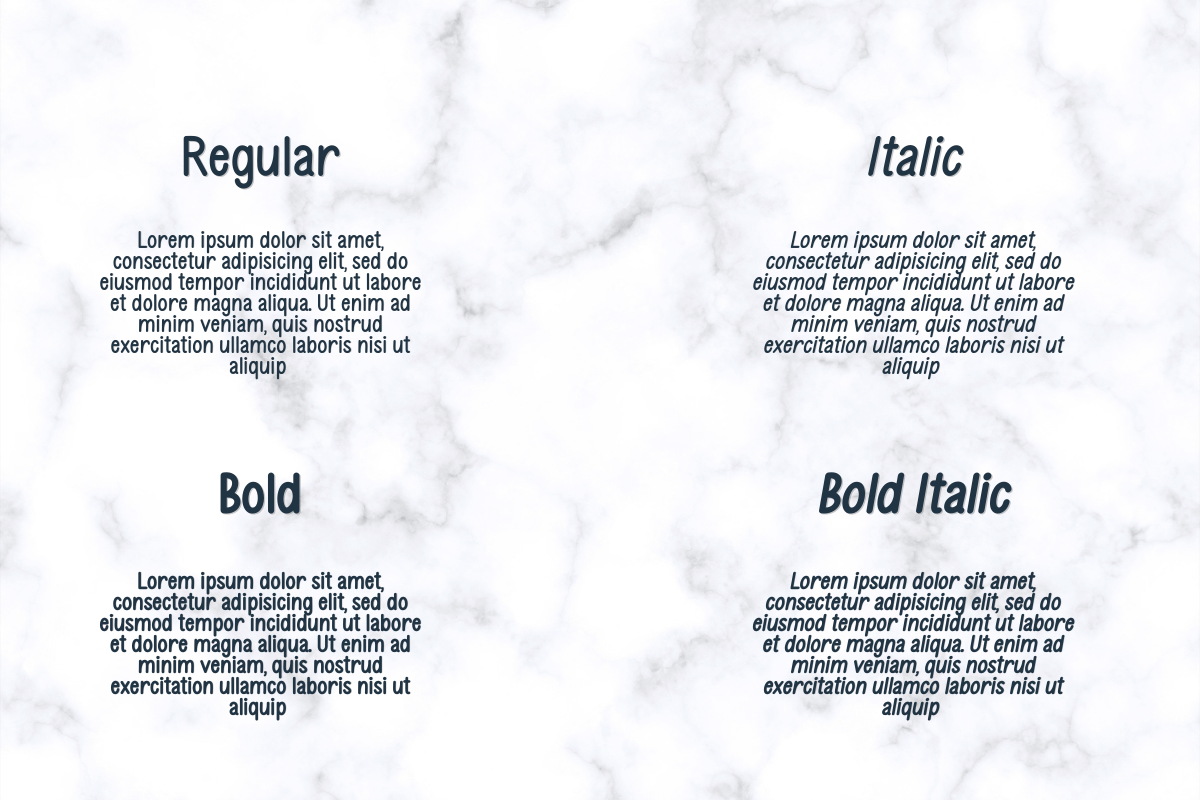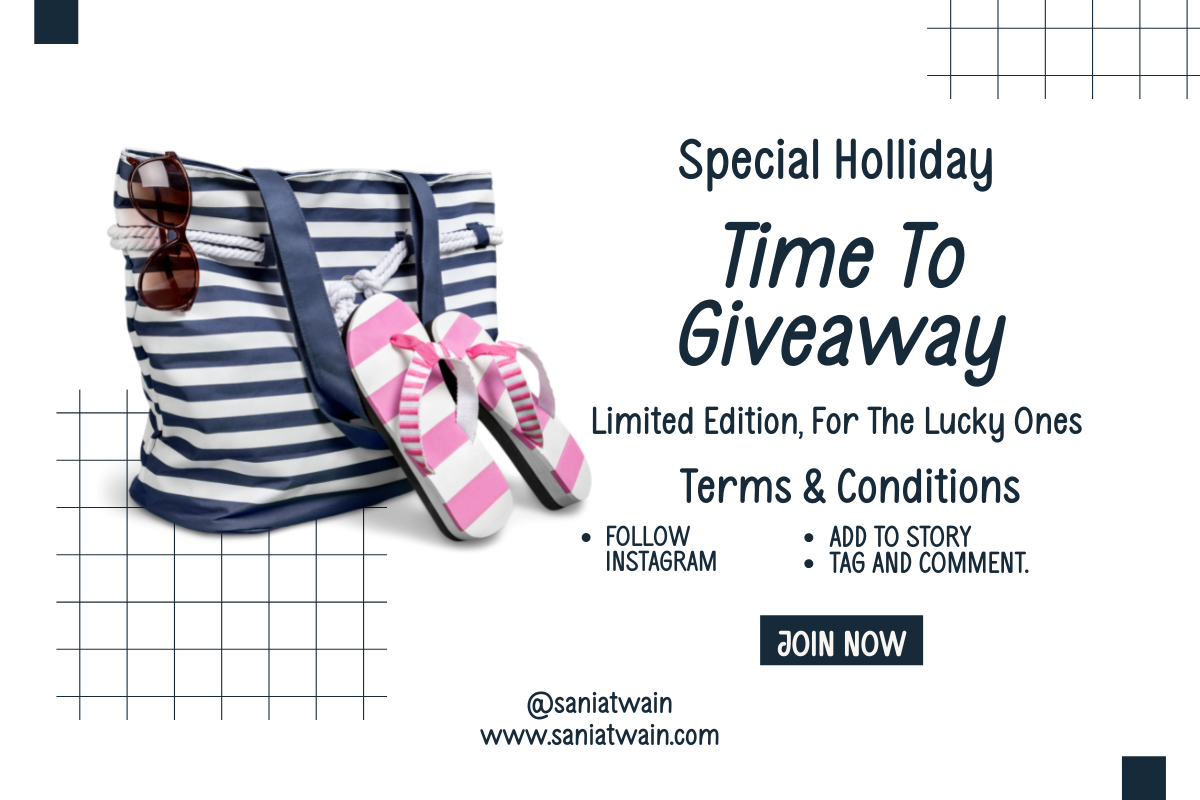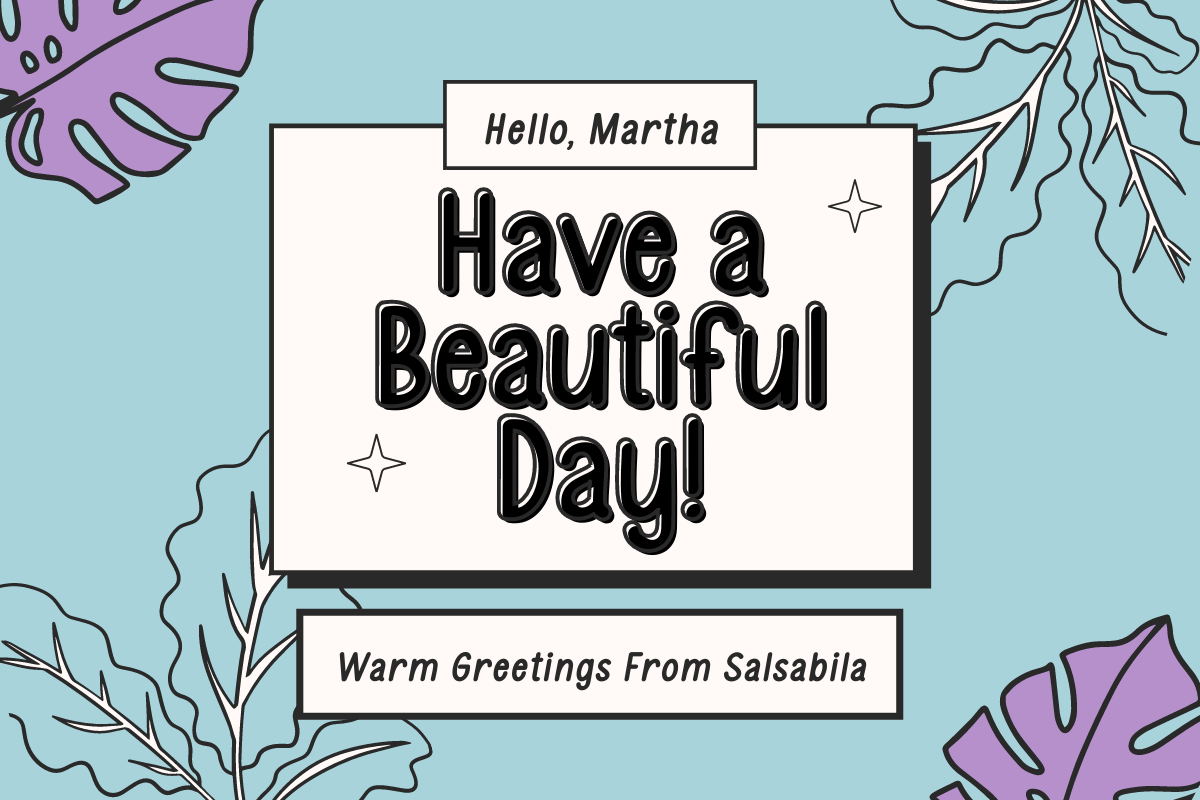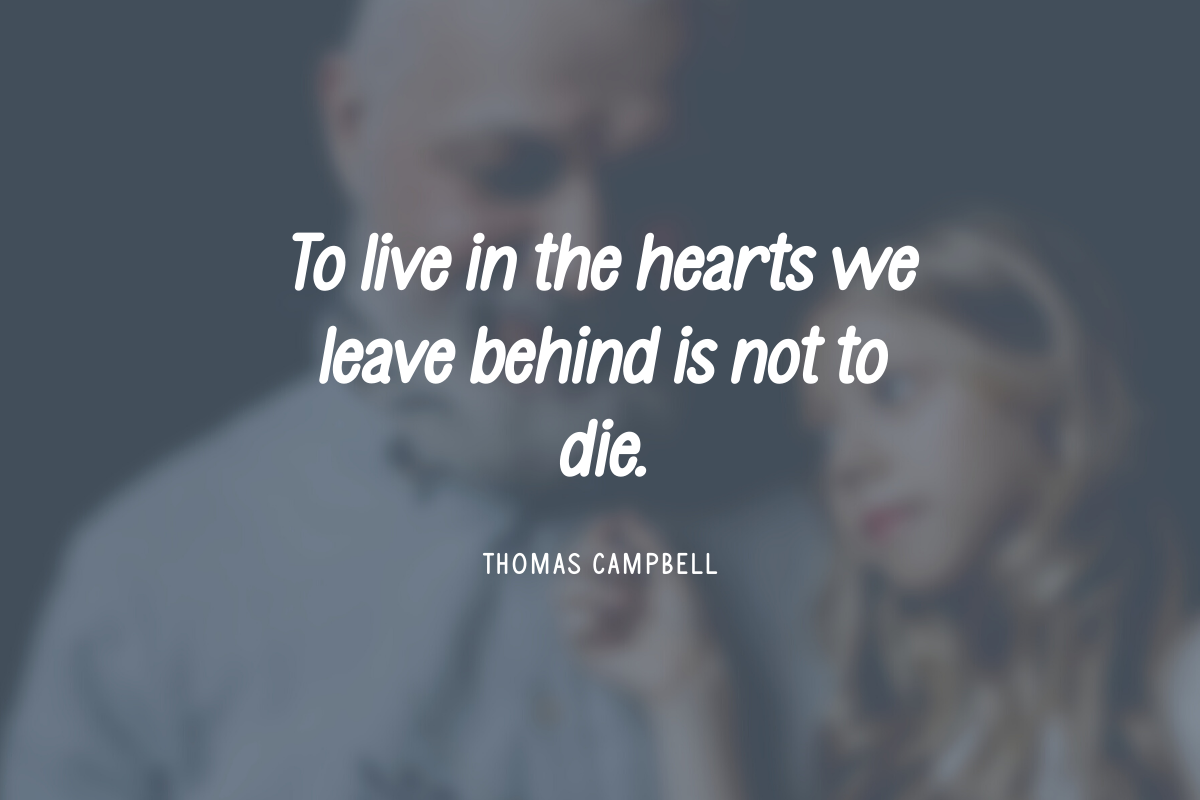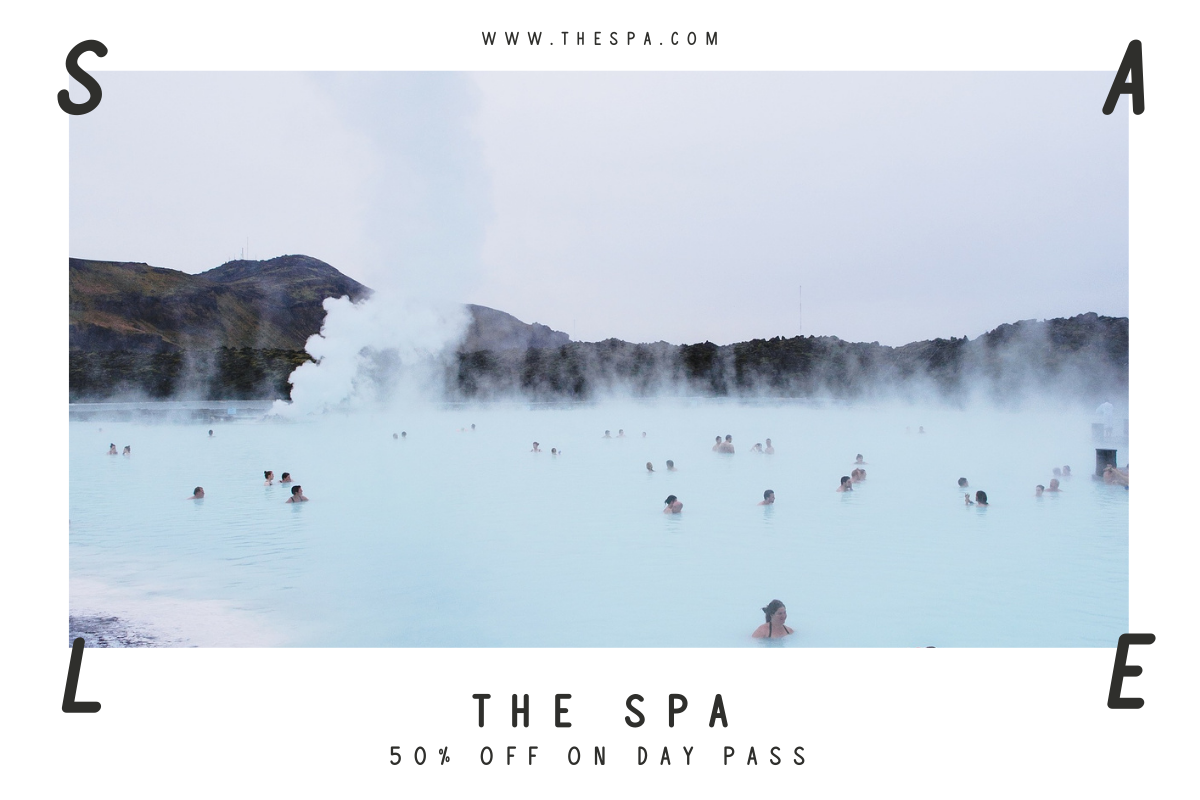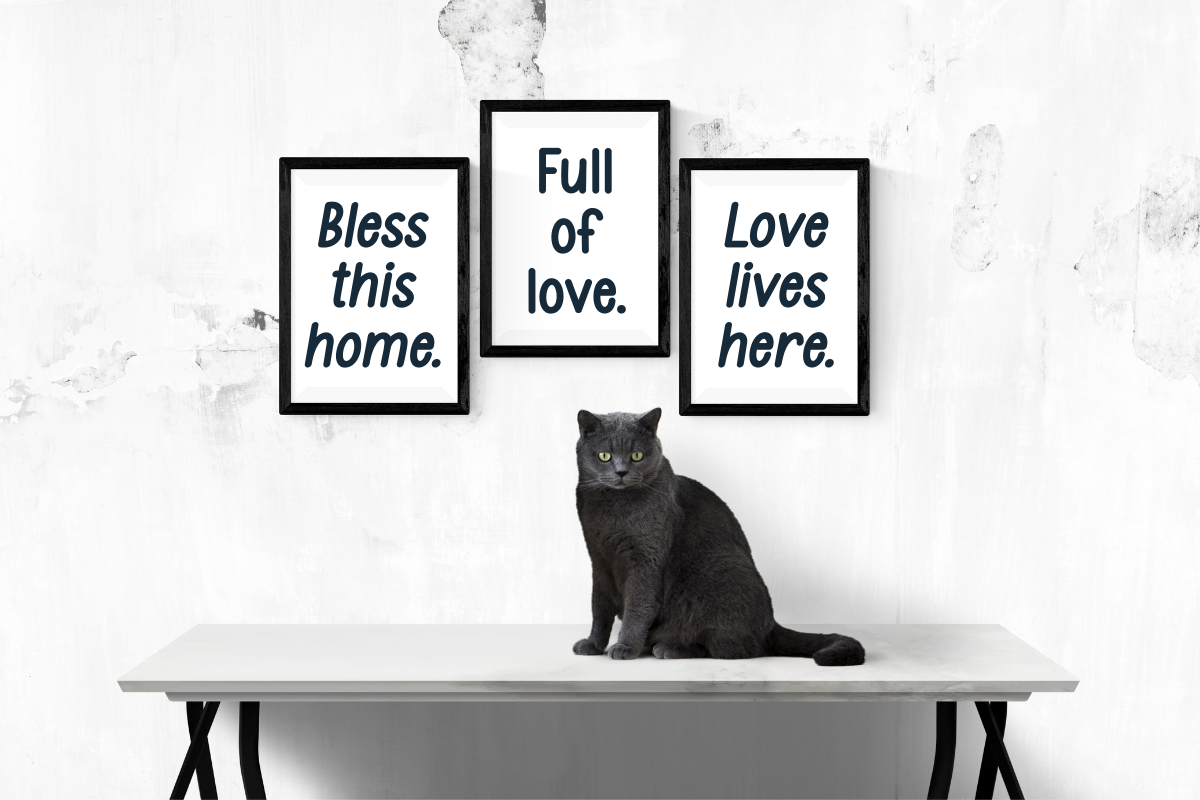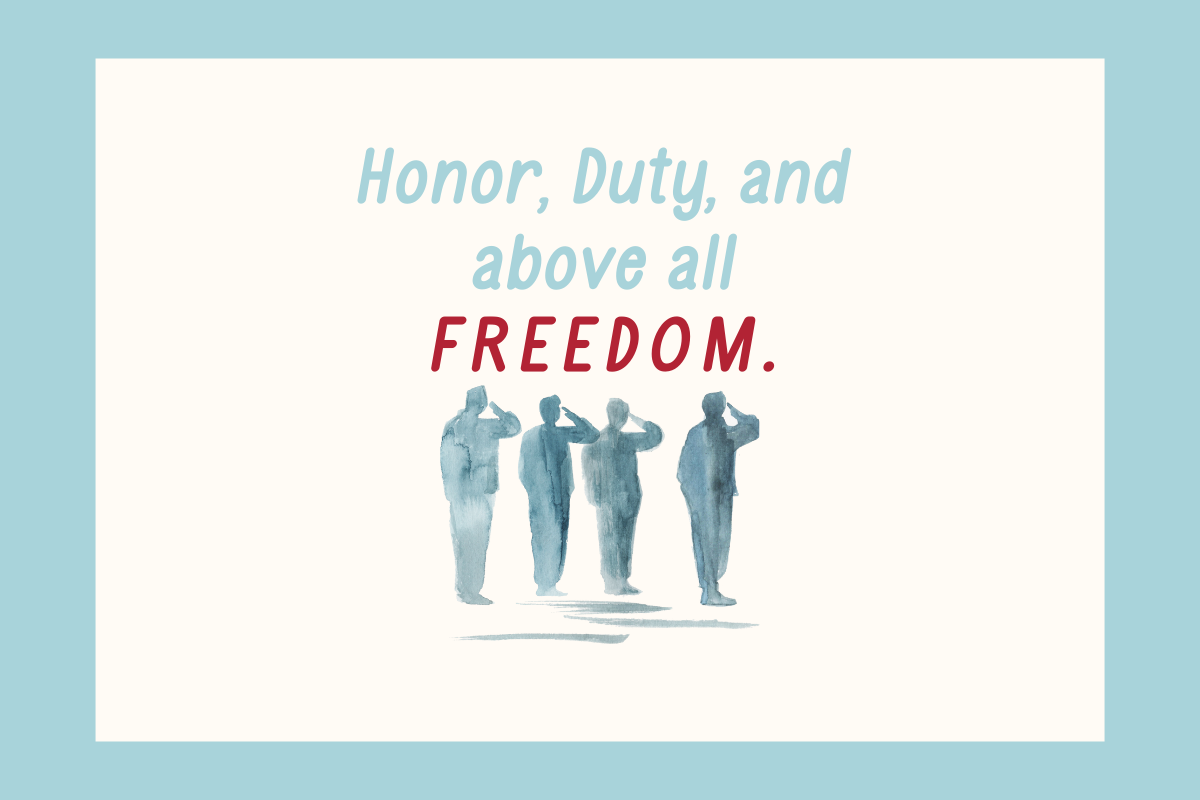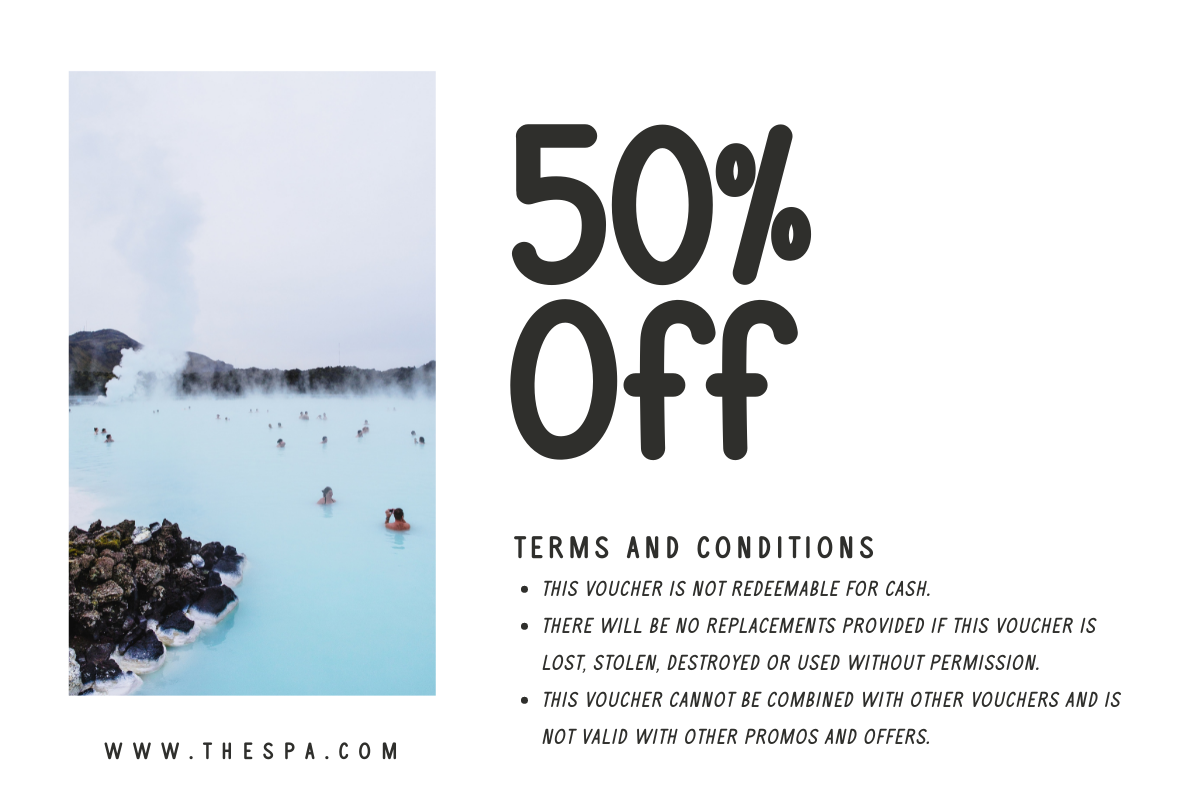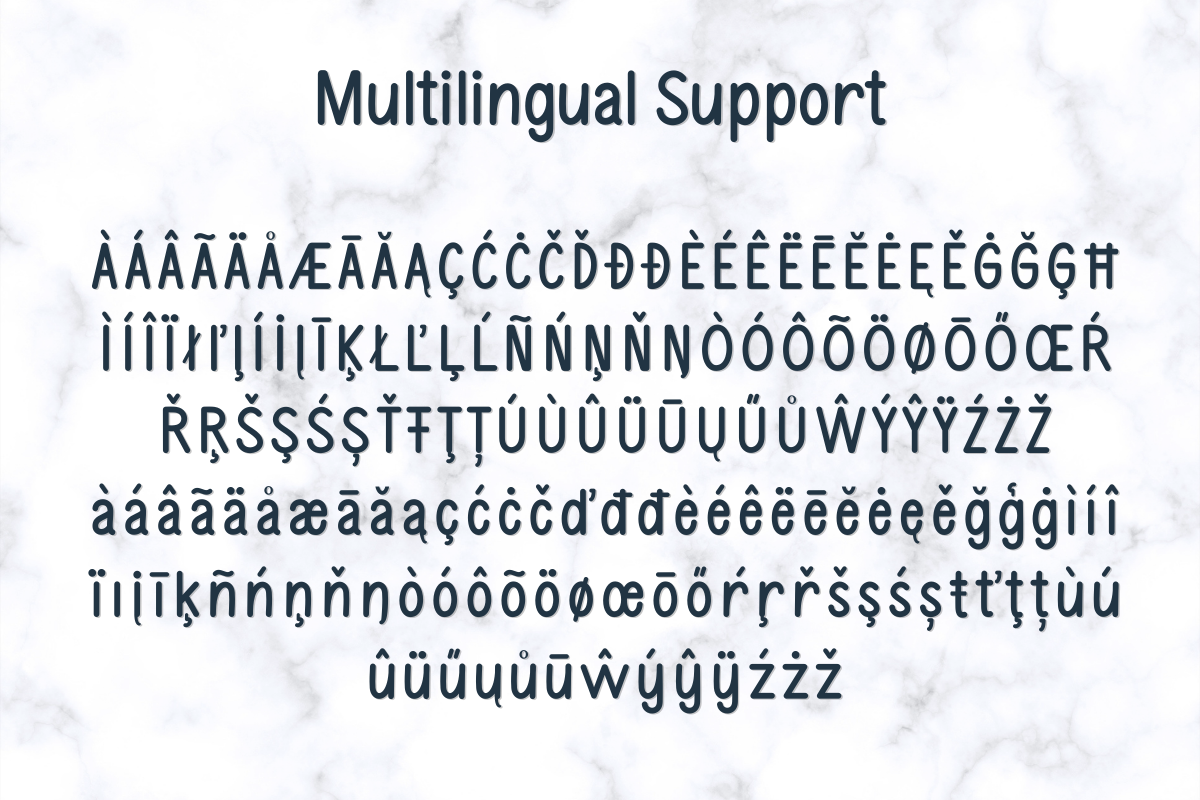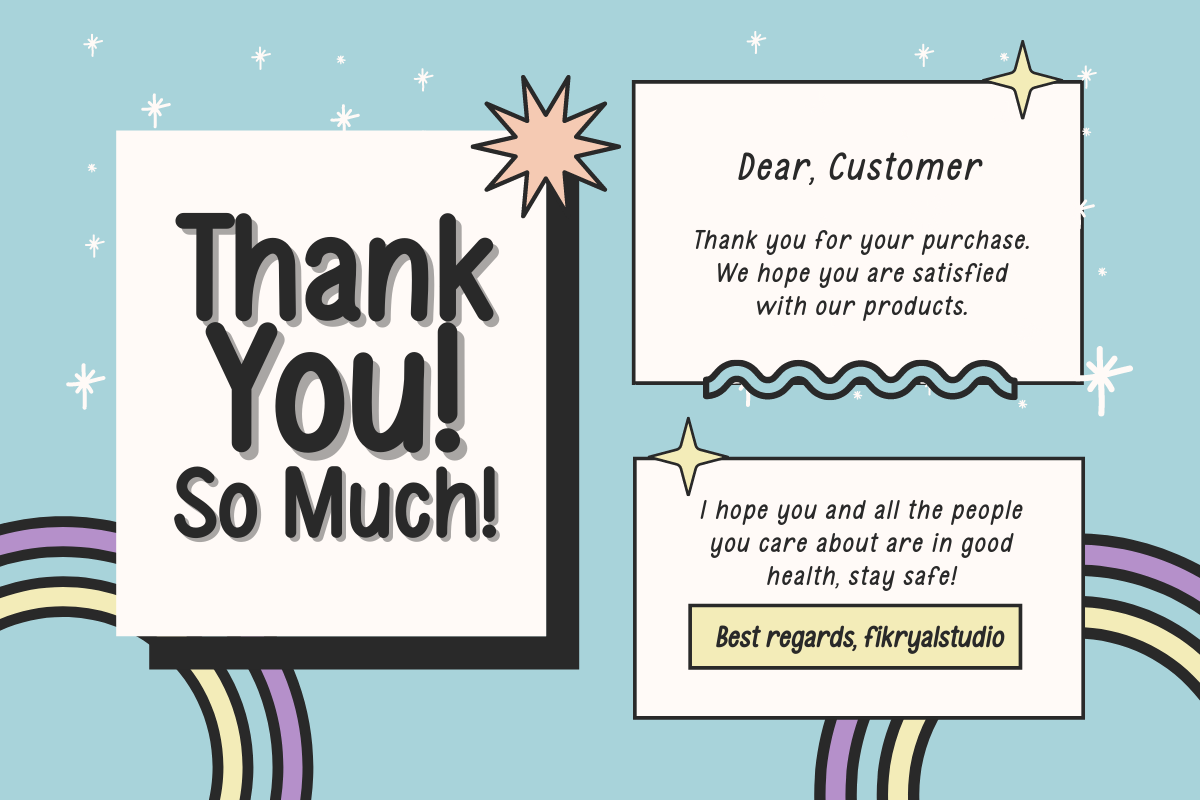
Hazelnut Milk Tea
Introducing this very simple sans serif font that is Hazelnut Milk Tea font. I created this font with the inspiration of simplicity and it is very friendly to look at, with four versions, namely regular, italic, bold, bold italic. Very suitable to be applied in various aspects of design, Also it’s perfect for logo, branding, title, social media posts, advertisements, product packaging, product designs, label, photography, watermark, special event, magazine, web designs, etc.
Hazelnut Milk Tea Regular ( Uppercase, Lowercase ) Hazelnut Milk Tea Regular Italic ( Uppercase, Lowercase ) Hazelnut Milk Tea Bold ( Uppercase, Lowercase ) Hazelnut Milk Tea Bold Italic ( Uppercase, Lowercase ) Symbols multilingual support